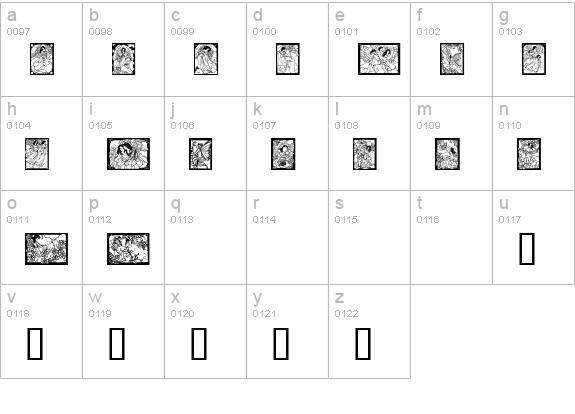
AngelsFairies Font Details
AngelsFairies font embodies the whimsical elegance of ethereal beings, blending the delicate grace of angels with the enchanting allure of fairies. This enchanting font features intricate swirls and delicate curves, reminiscent of celestial wings and magical spells. What sets AngelsFairies font apart is its seamless fusion of heavenly beauty and mystical charm, making it perfect for adding a touch of magic to your designs. Whether you're creating invitations, greeting cards, or branding materials, this font will lend a touch of otherworldly grace to your projects. Best of all, AngelsFairies font is available for free download at FontsMarket.com, allowing you to unleash your creativity without any cost barriers. Embrace the magic of AngelsFairies font and let your designs soar to new heights with its ethereal beauty and enchanting appeal.